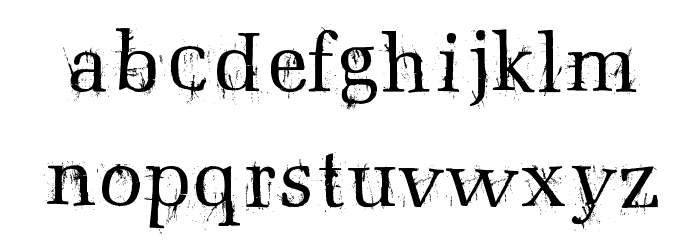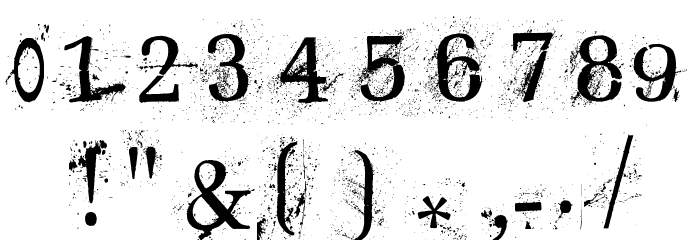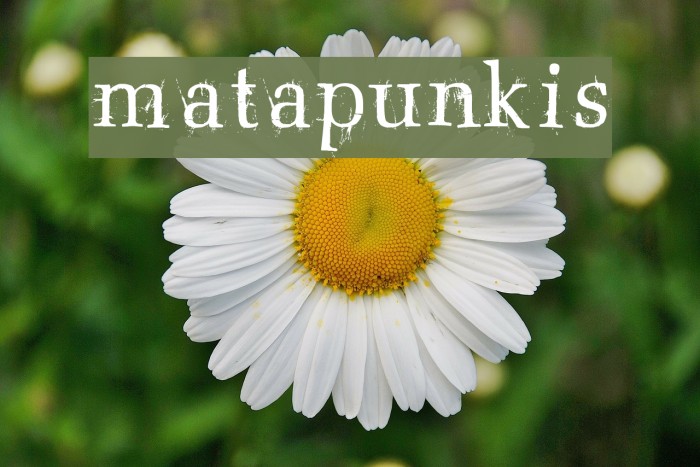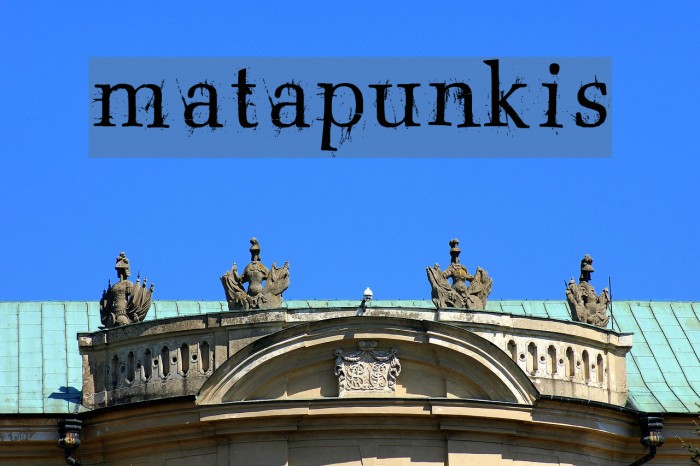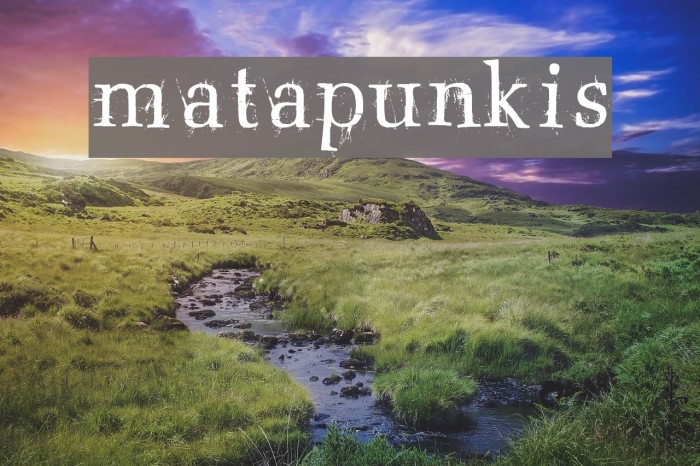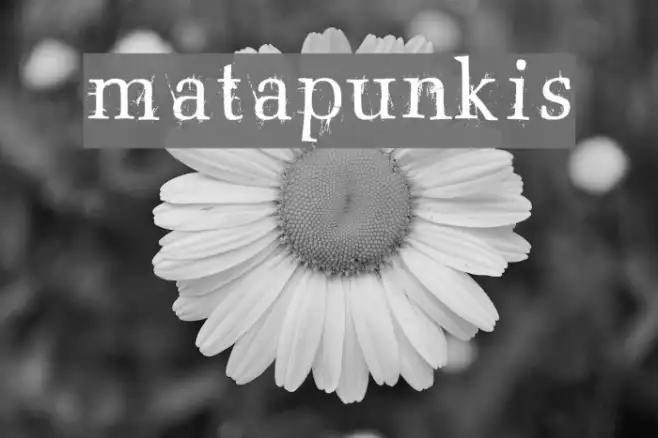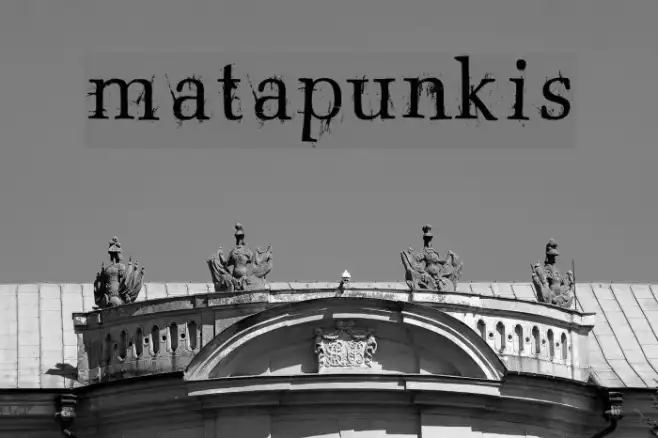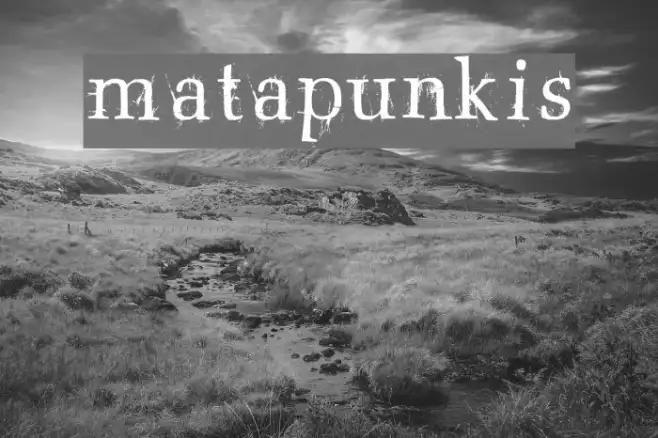
matapunkis Font
This font features a distressed, grunge style with a vintage aesthetic. The letters have a rough, textured appearance, giving them an aged and worn look. The uppercase and lowercase characters maintain a consistent style, with slightly irregular edges and varying stroke widths that add to the overall distressed effect. The numerals and special characters follow the same design, ensuring a cohesive appearance across all elements. This font is ideal for projects that require a bold, eye-catching design with a touch of nostalgia.
A distressed, vintage-style font with a grunge aesthetic.
- Proposed Projects: Perfect for album covers, posters, branding for alternative or retro-themed products, and any design requiring a bold, vintage look.
- Overall Style: Vintage